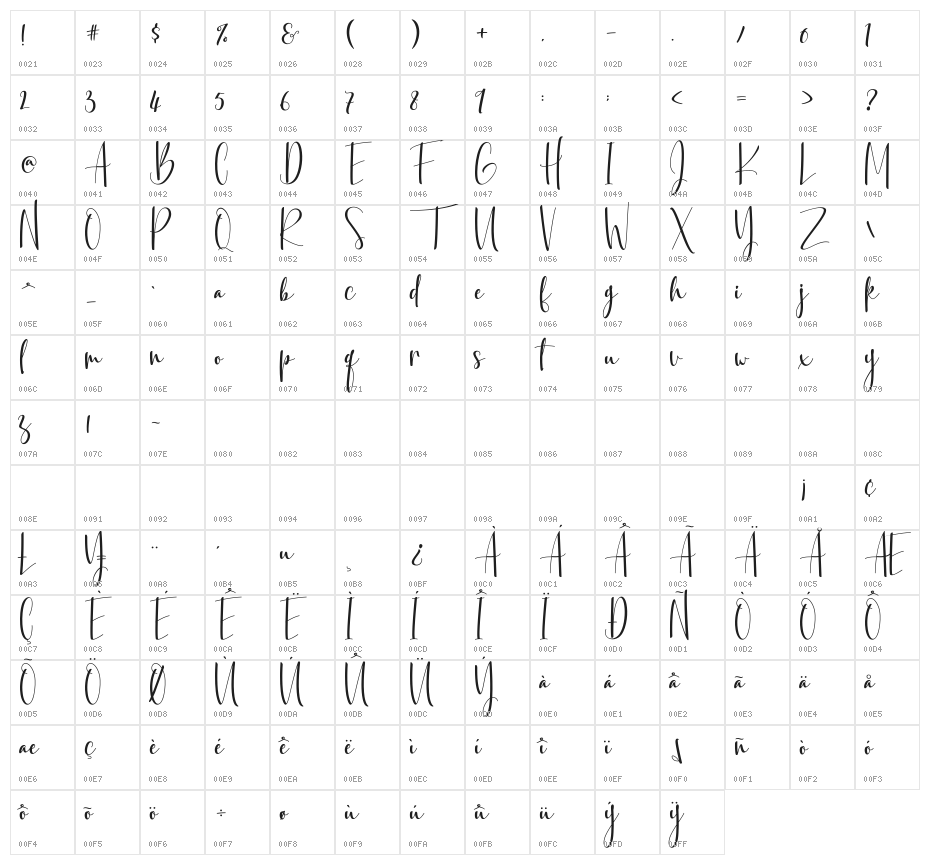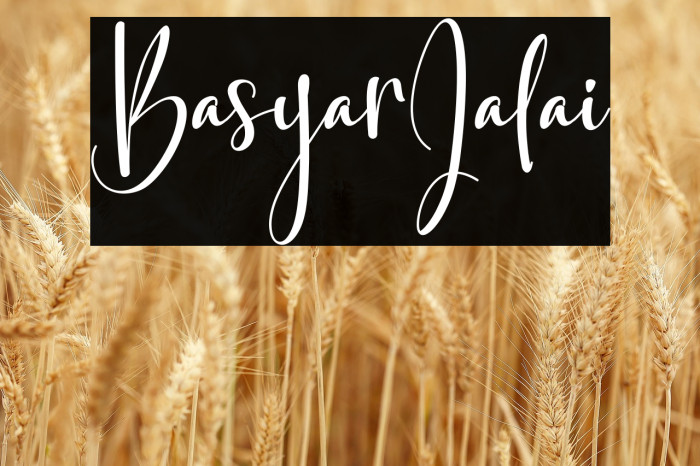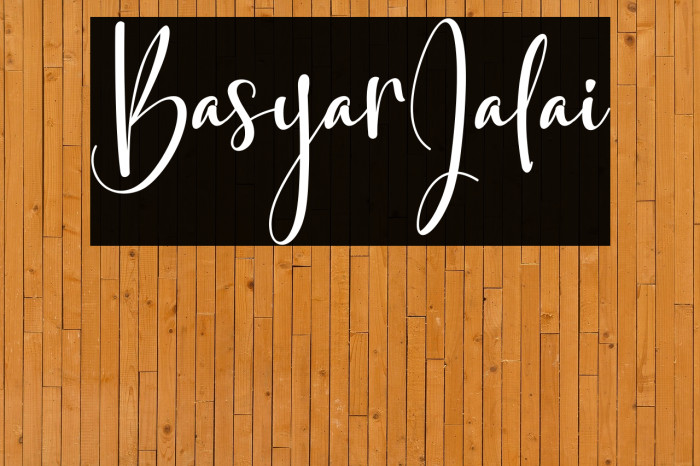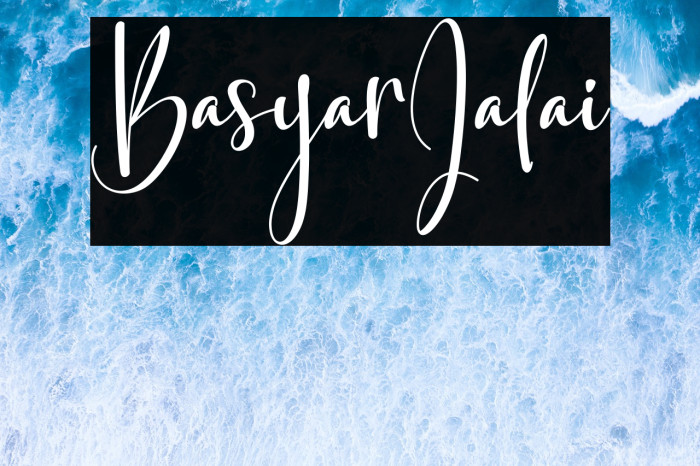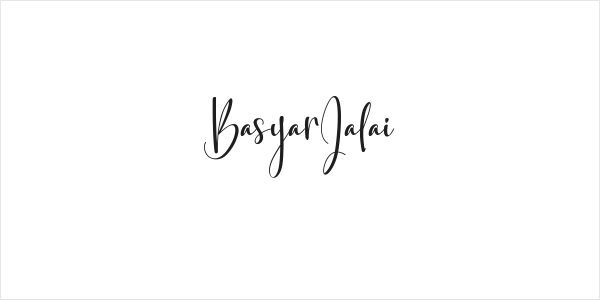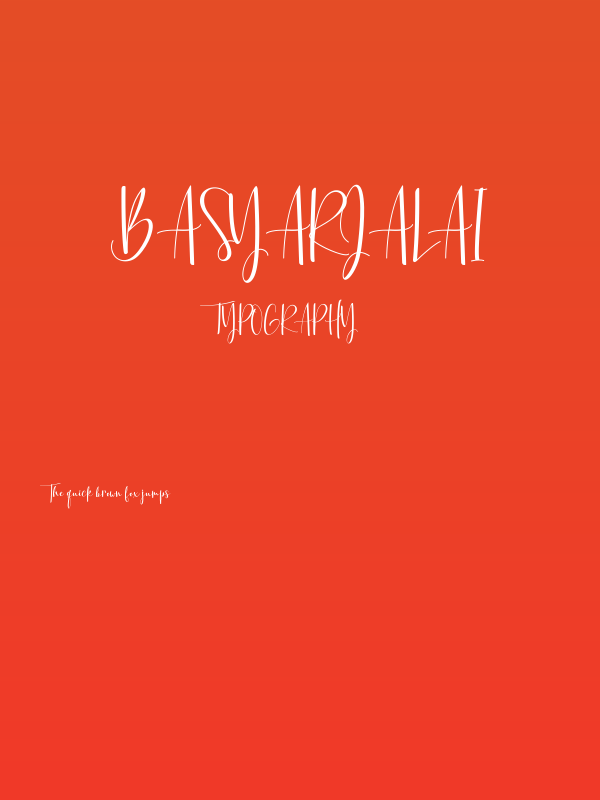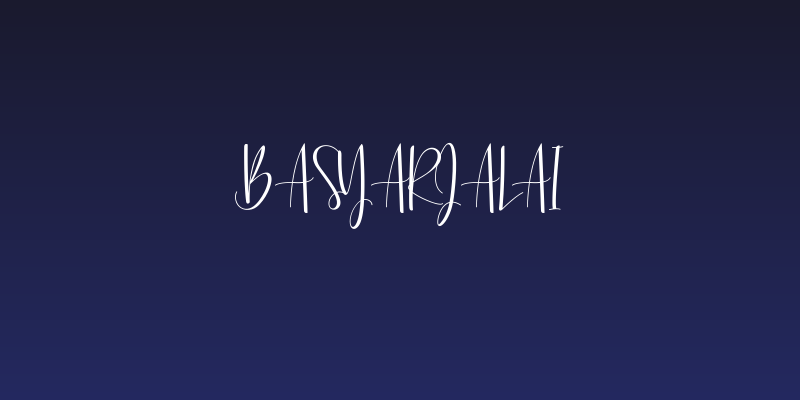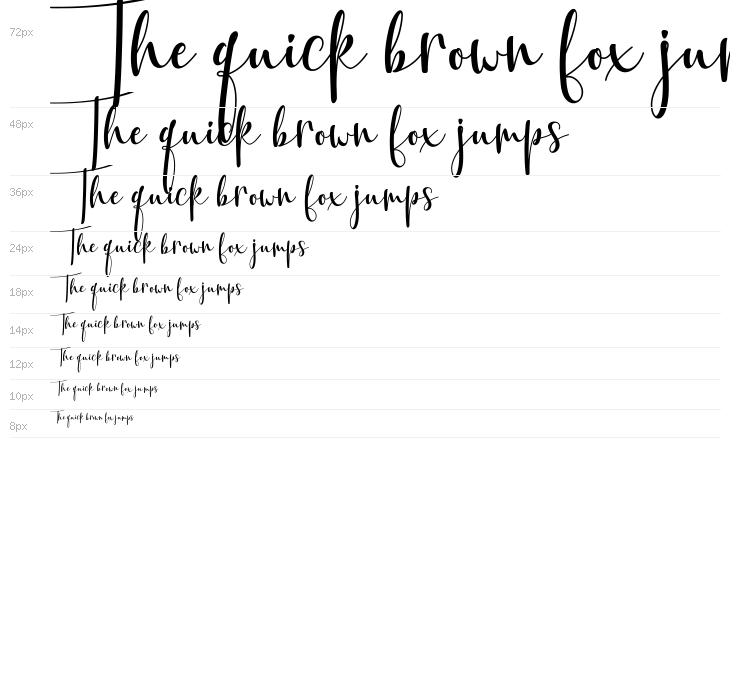
BasyarJalai Font
BasyarJalai Description
This font exhibits a lively and expressive handwritten style, characterized by its fluid and dynamic strokes. The uppercase letters are tall and slender, with a playful, whimsical flair that adds a sense of movement and energy. The lowercase letters maintain a consistent flow, with some characters featuring elegant loops and curves. The numerals are bold and slightly elongated, complementing the overall aesthetic. Special characters are creatively integrated, enhancing the font's artistic appeal. This font is ideal for projects that require a personal, artistic touch.
| Proposed Projects | Ideal for wedding invitations, greeting cards, branding projects, and artistic posters. |